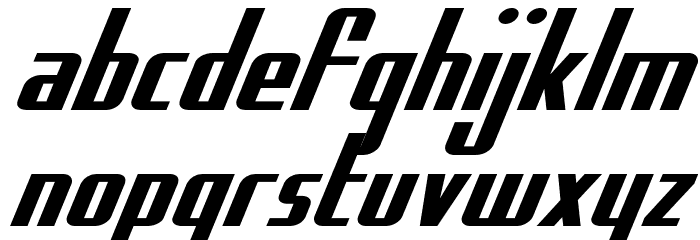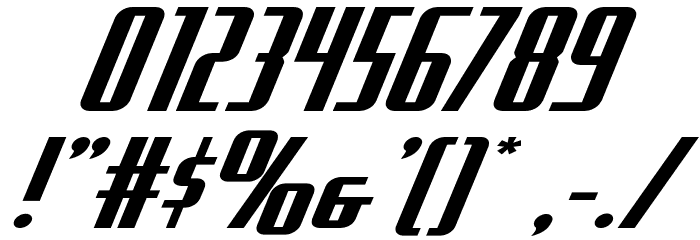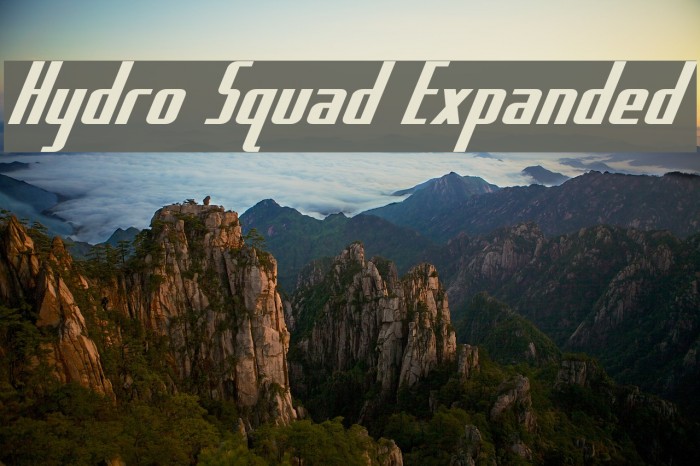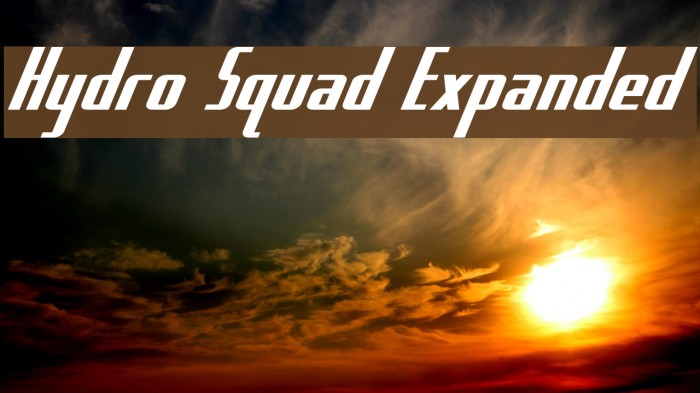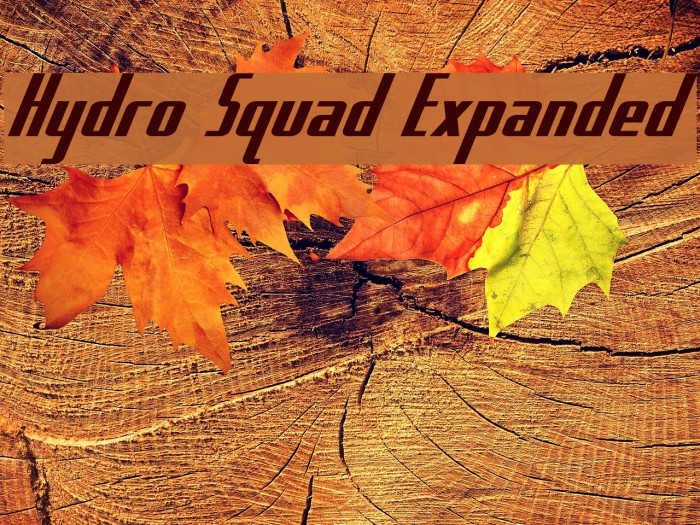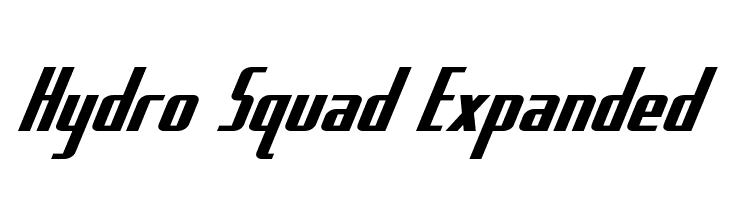
Hydro Squad Expanded Font
This font features a bold and dynamic design with a distinctly modern and futuristic flair. The characters are elongated and slightly slanted, giving a sense of motion and speed. The strokes are thick and consistent, providing a strong visual impact. The uppercase and lowercase letters maintain a uniform style, with sharp angles and clean lines. Numbers and special characters are designed to match the overall aesthetic, ensuring cohesion across all text elements. The font's expanded width enhances readability while maintaining its unique style.
A bold, modern font with elongated, slanted characters and a futuristic style.
- Proposed Projects: Ideal for sports branding, automotive designs, tech-related projects, and dynamic advertising.